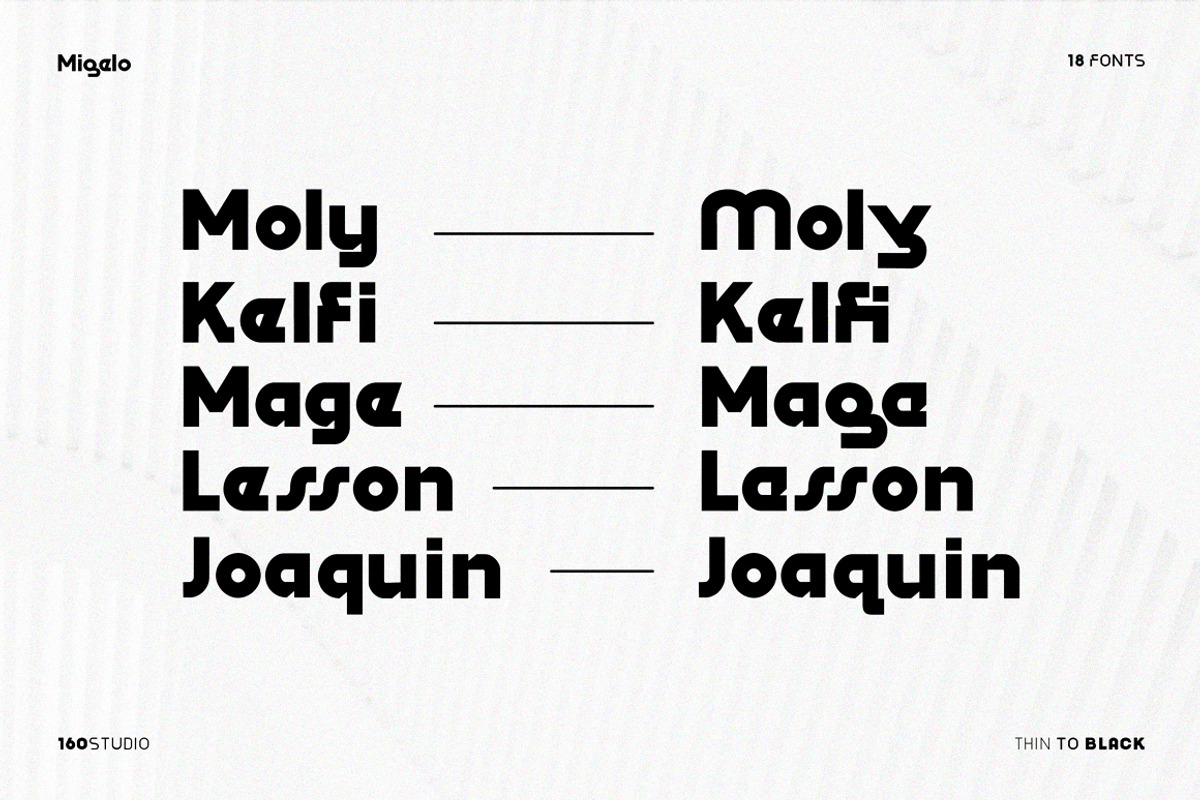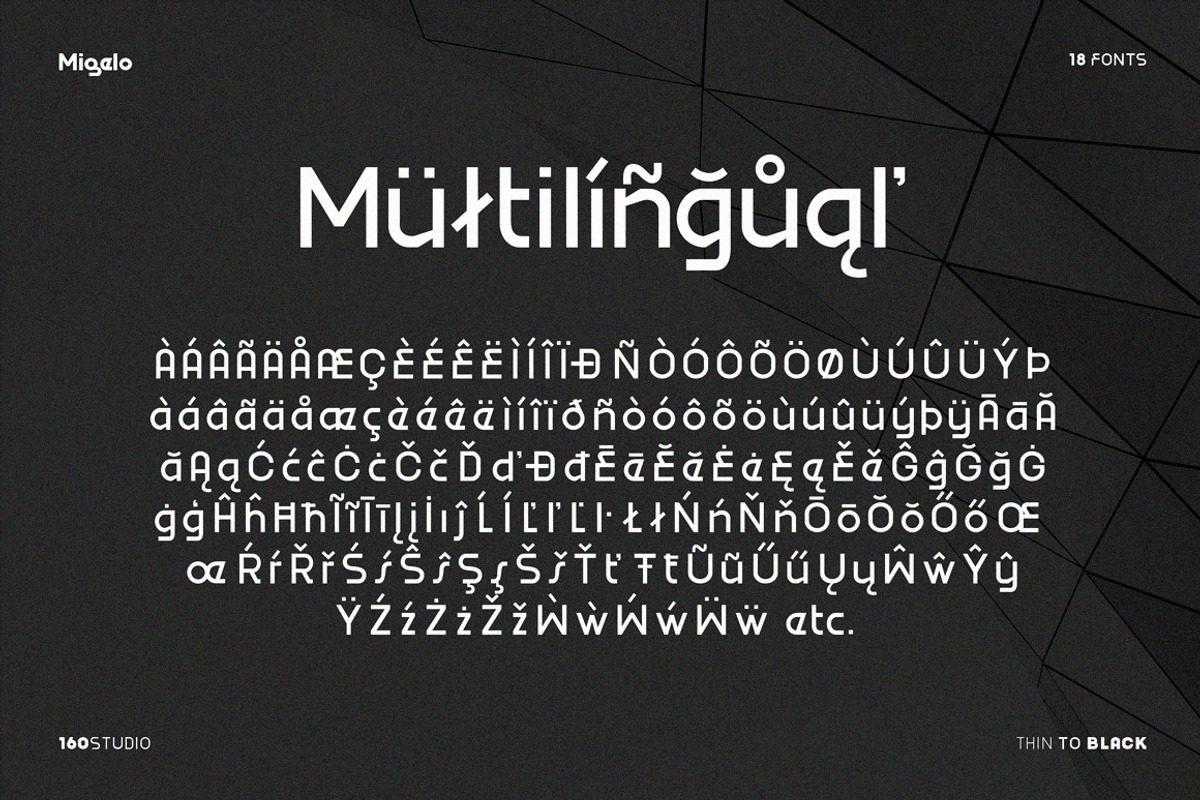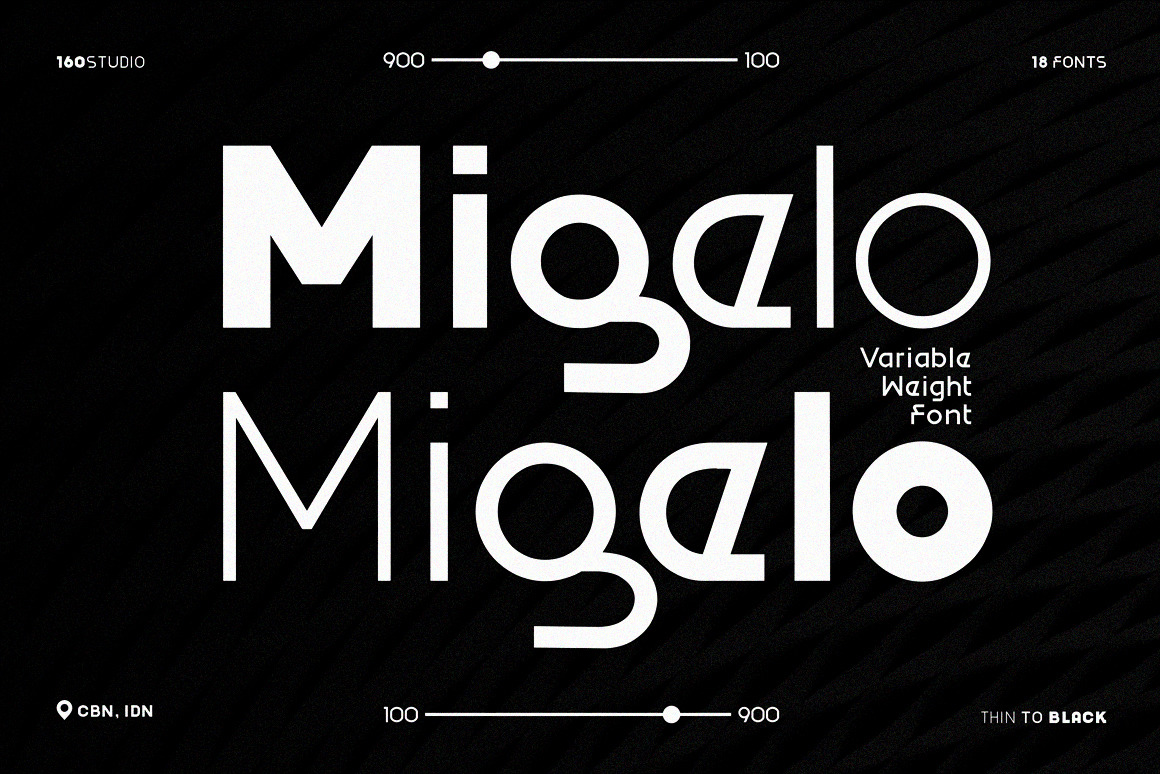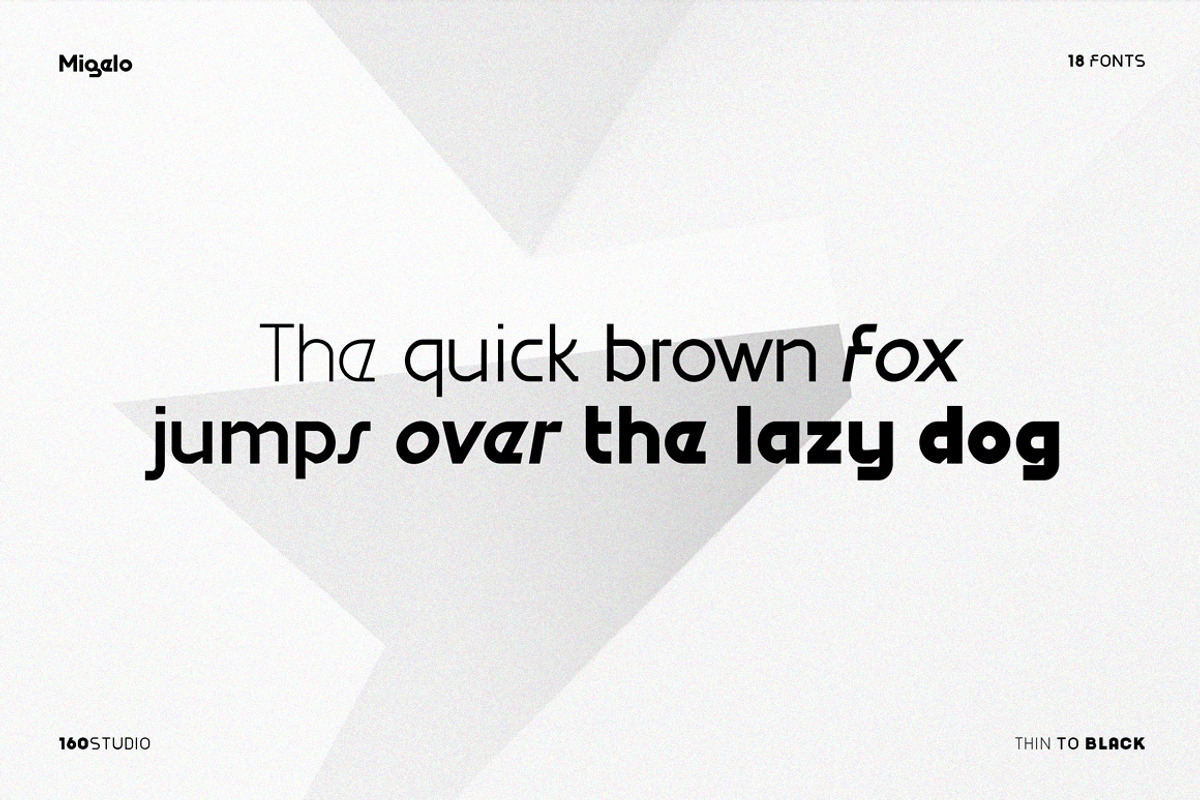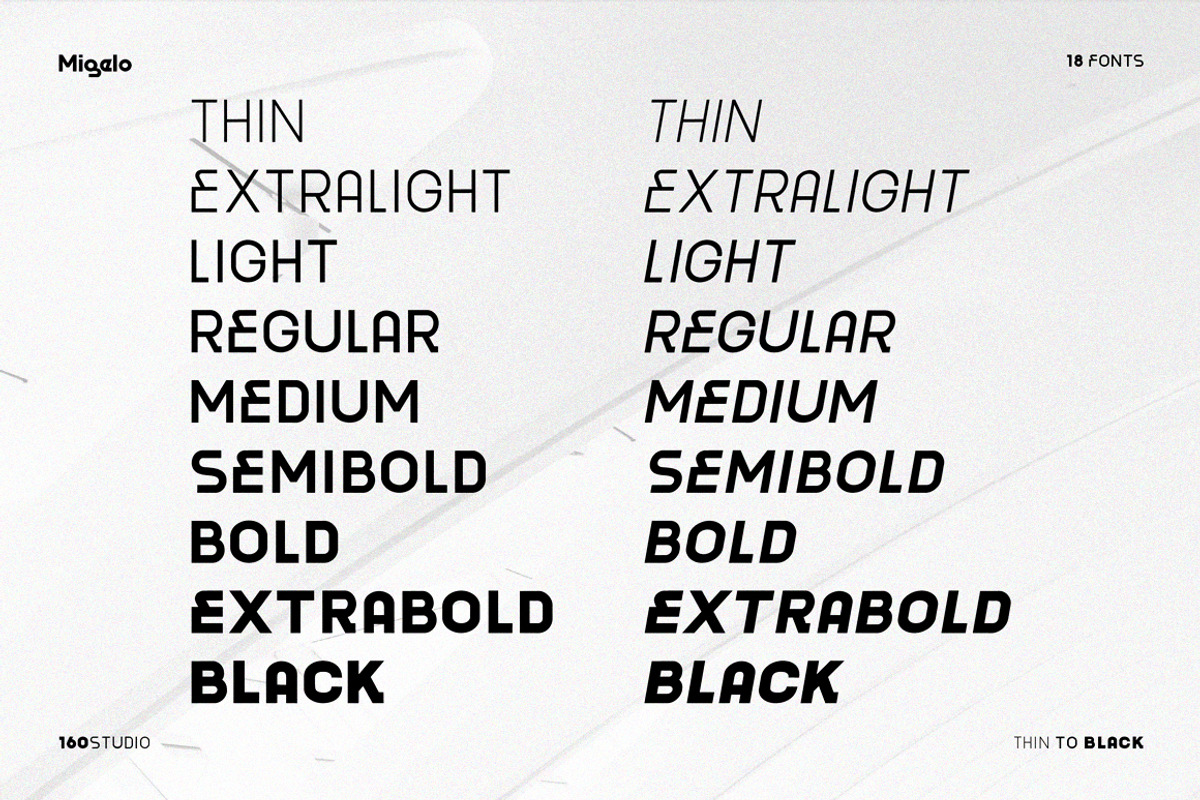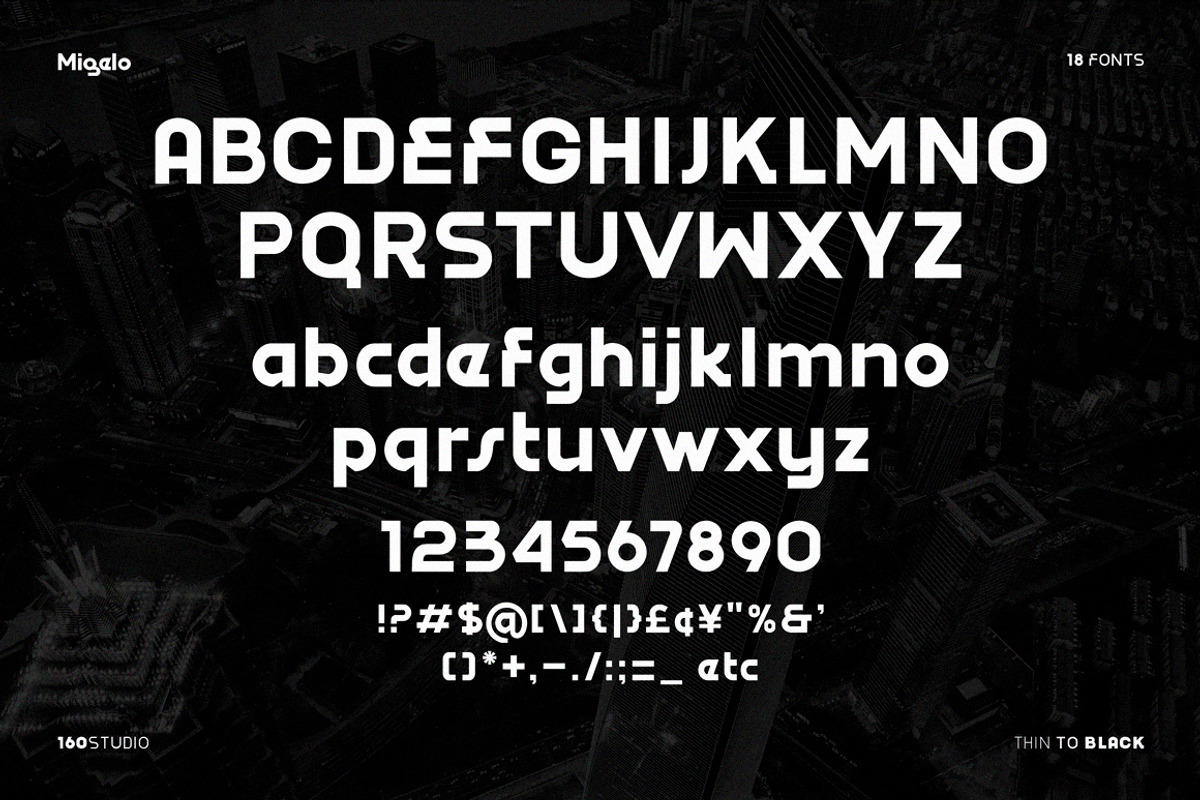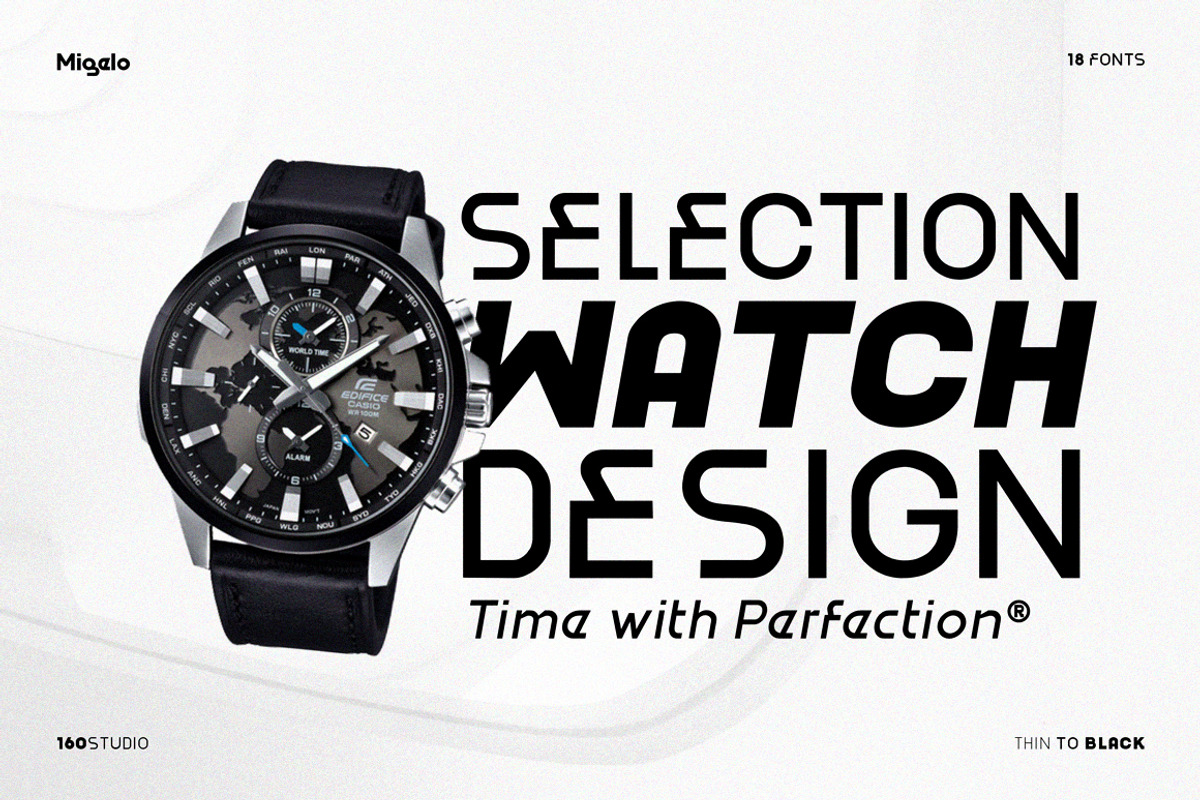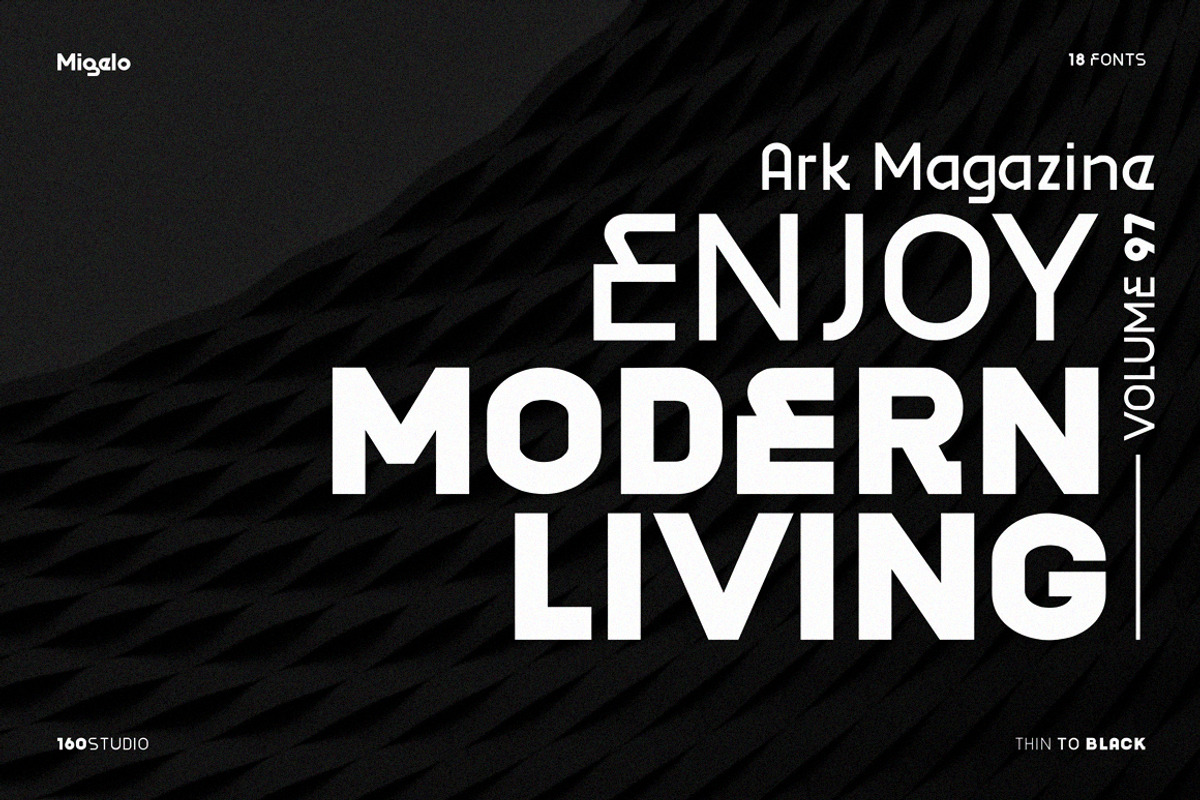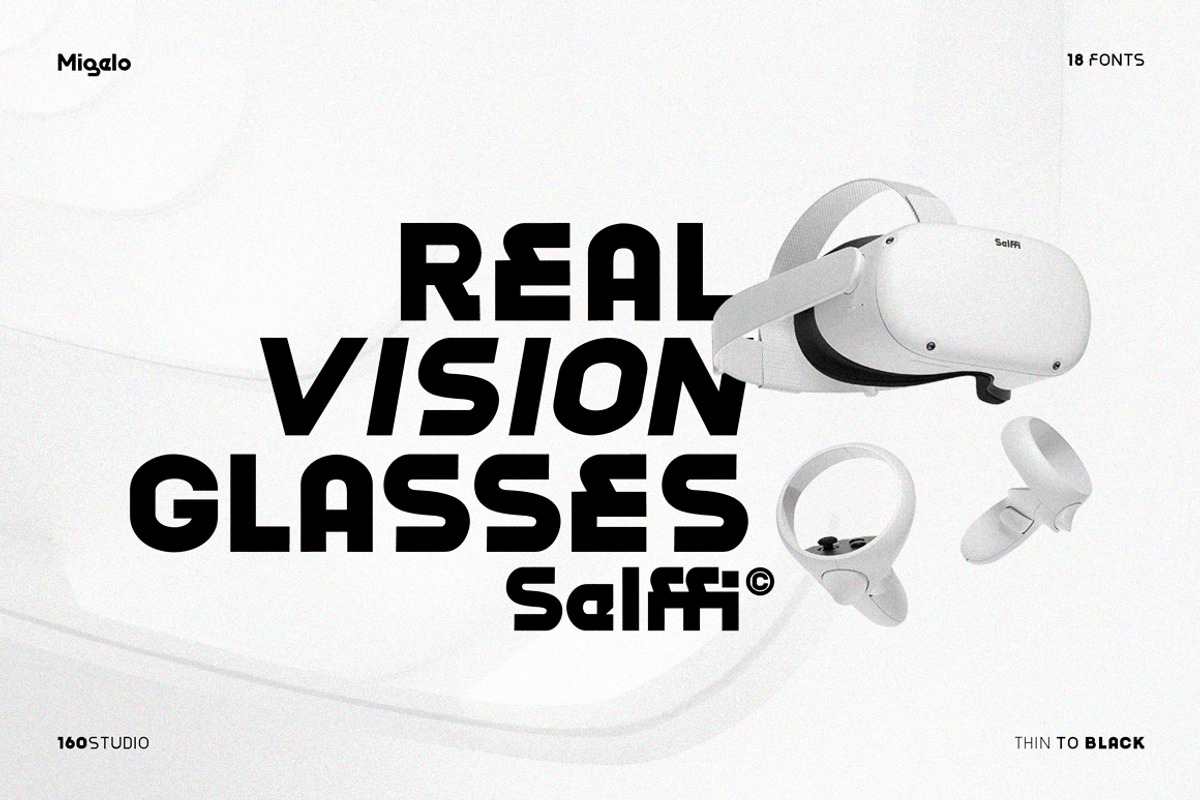
Migelo Modern Variable Font
Migelo
Explore our versatile text display font crafted with precision – featuring 9 variations ranging from thin to black, complemented by 9 italic versions. Ideal for elevating your headlines, logo branding, quotes, posters, products, and more.
Migelo Features :
- Stylistic Alternate